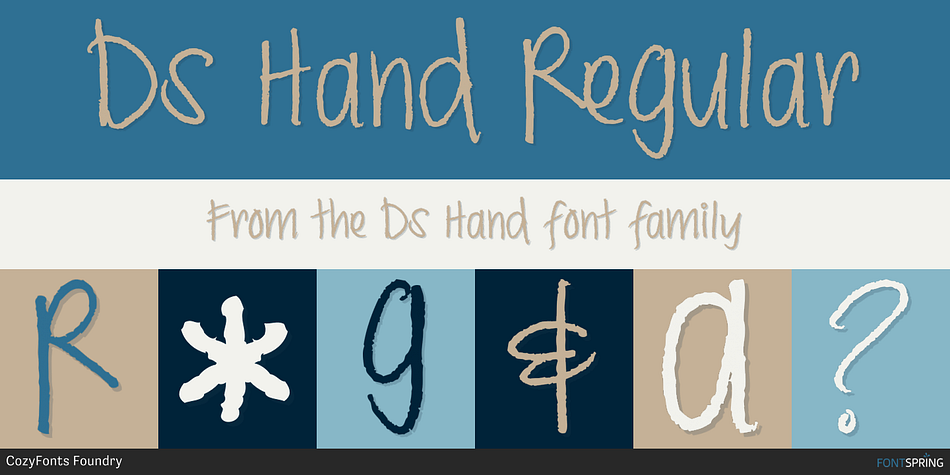
Ds Hand Regular
Designed by Tom Nikosey, Ds Hand is a hand drawn font family. This typeface has two styles and was published by CozyFonts Foundry.
Ds Hand Font Family is a handwritten font designed by Tom Nikosey, based on Danielle Nikosey’s printing style.
Ds Hand Font Family is a handwritten font designed by Tom Nikosey, based on Danielle Nikosey’s printing style. Tom is an American Graphic Designer specializing in Typographic Design and Illustration. Ds Hand is available in Regular & Bold weights
CozyFonts Foundry is Tom’s intro into the world of font design. Ds Hand Family is a tribute and gift to his daughter.
Ds Hand, at first glance, gives a hand drawn aesthetic feel but on closer inspection, when set as text, this font gives off a cool, organized, legibly organic read. Also available in Bold. This is the 5th Hand Drawn Font Family from CozyFonts!